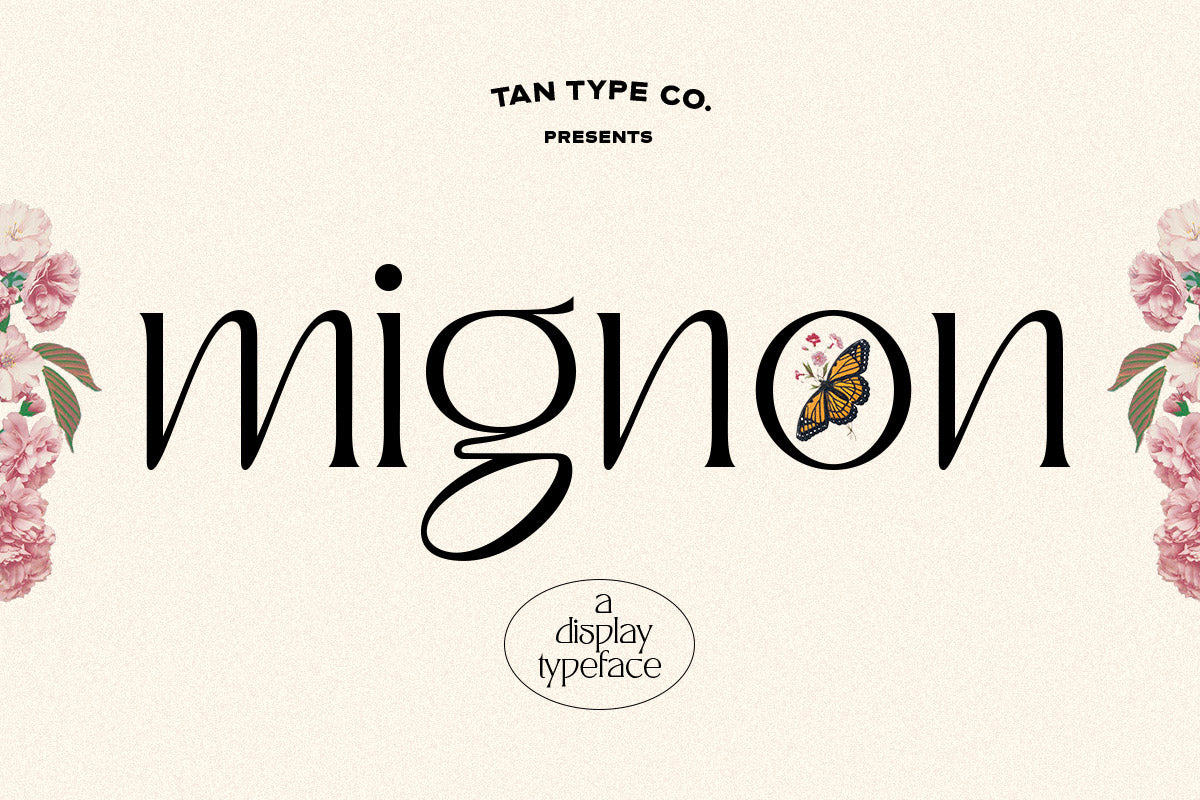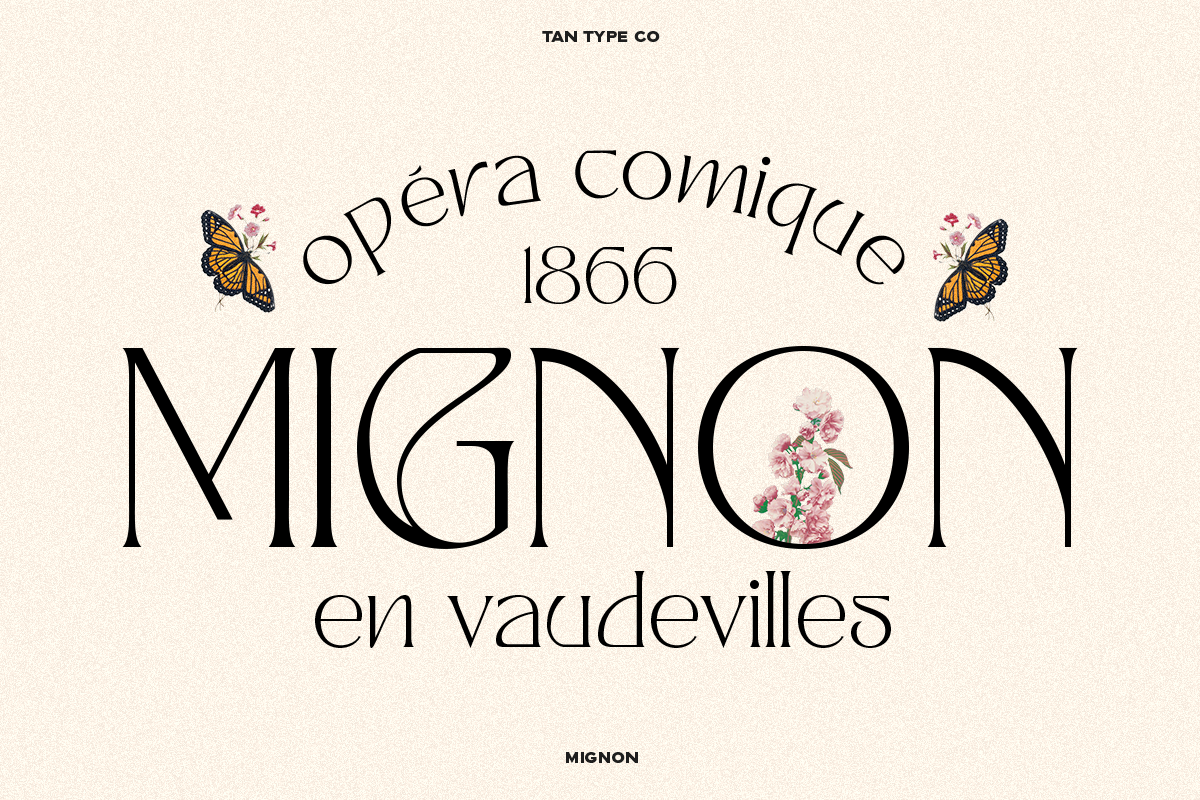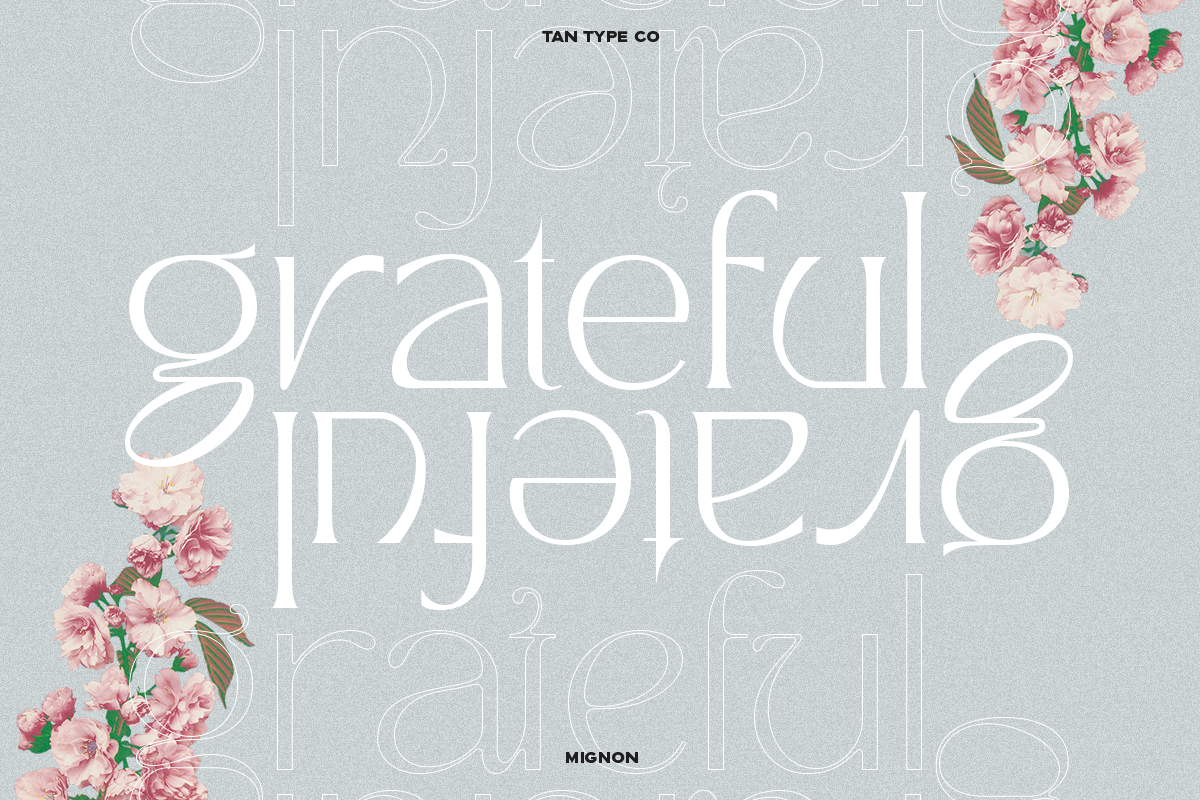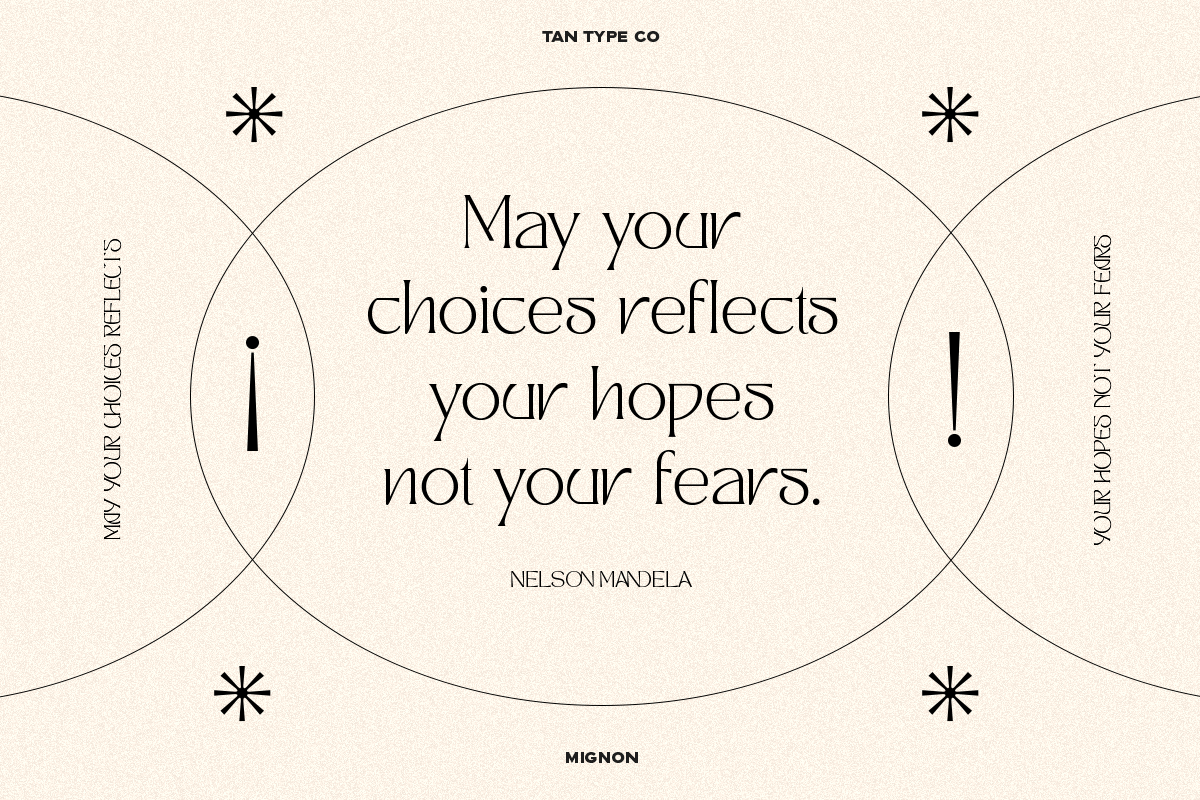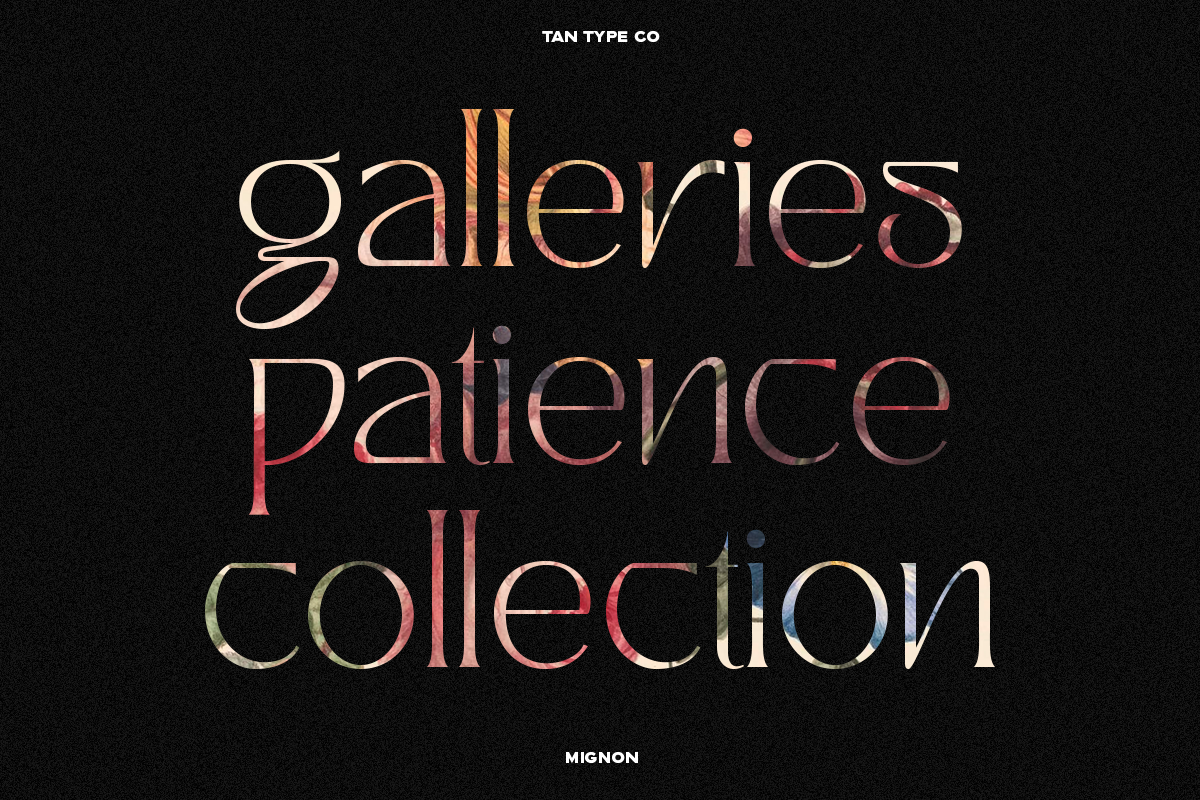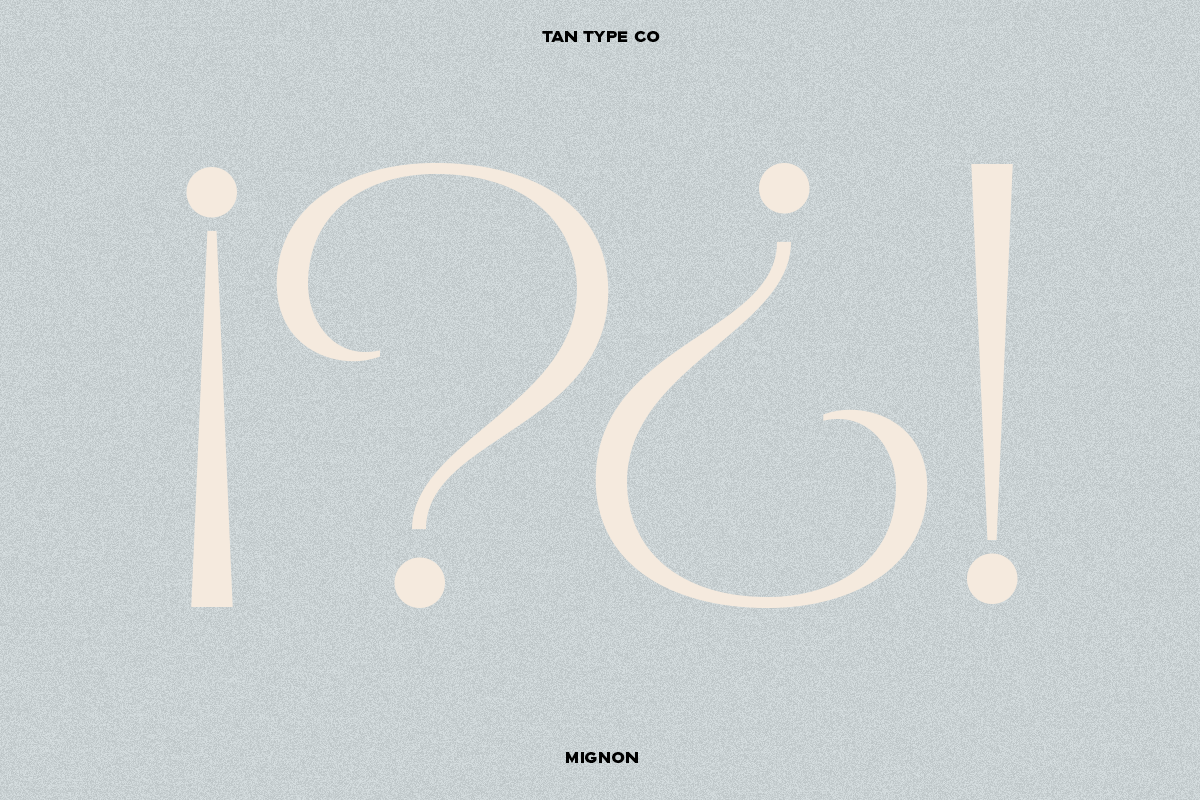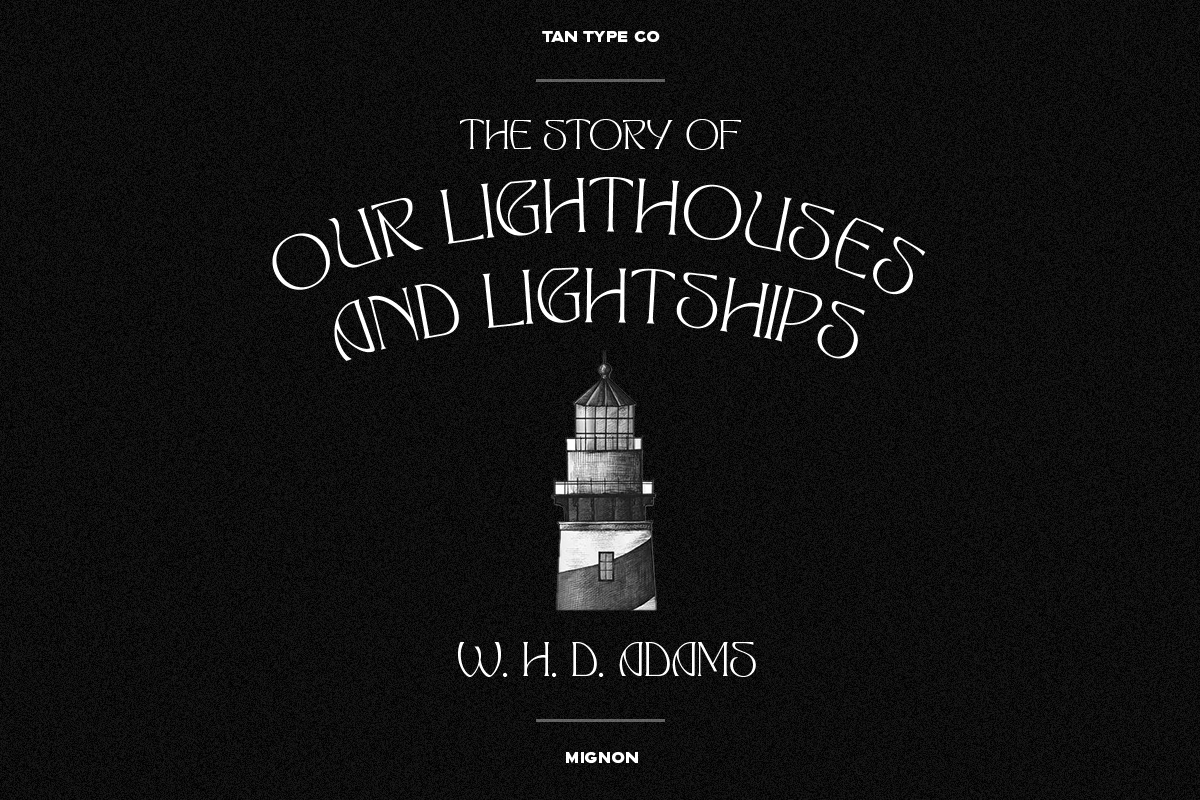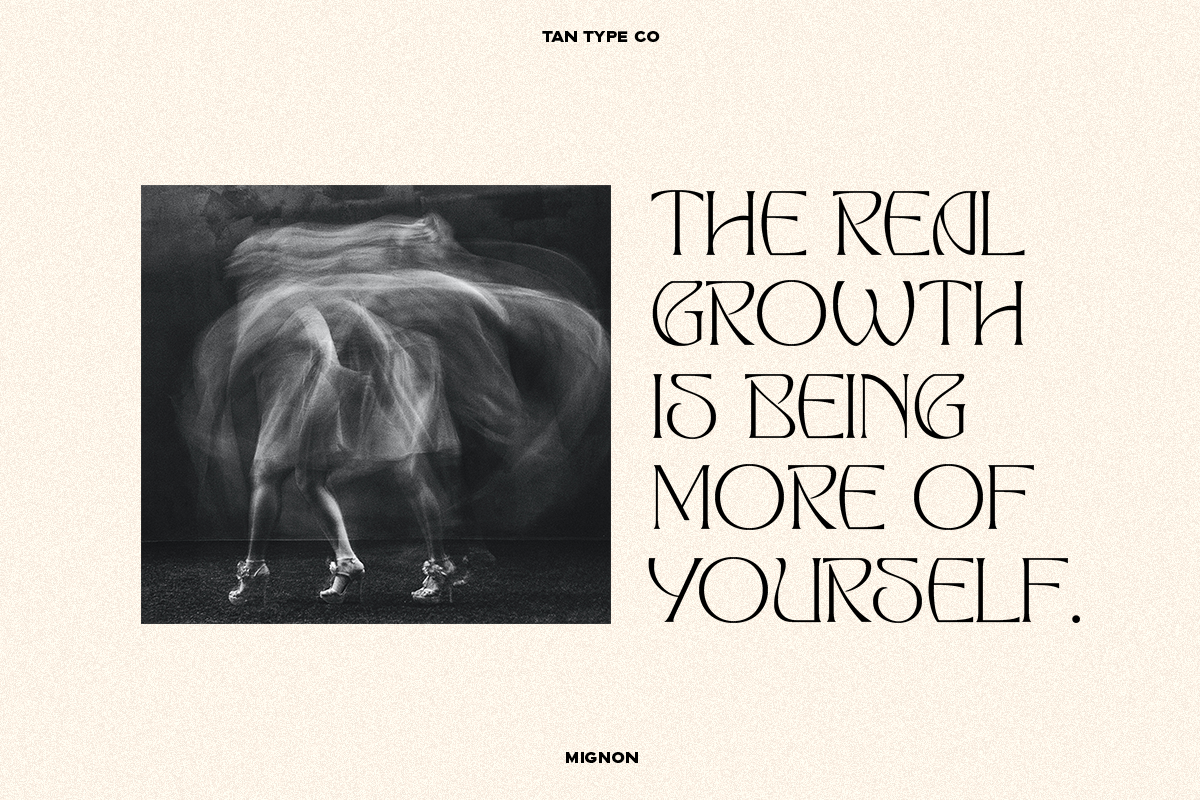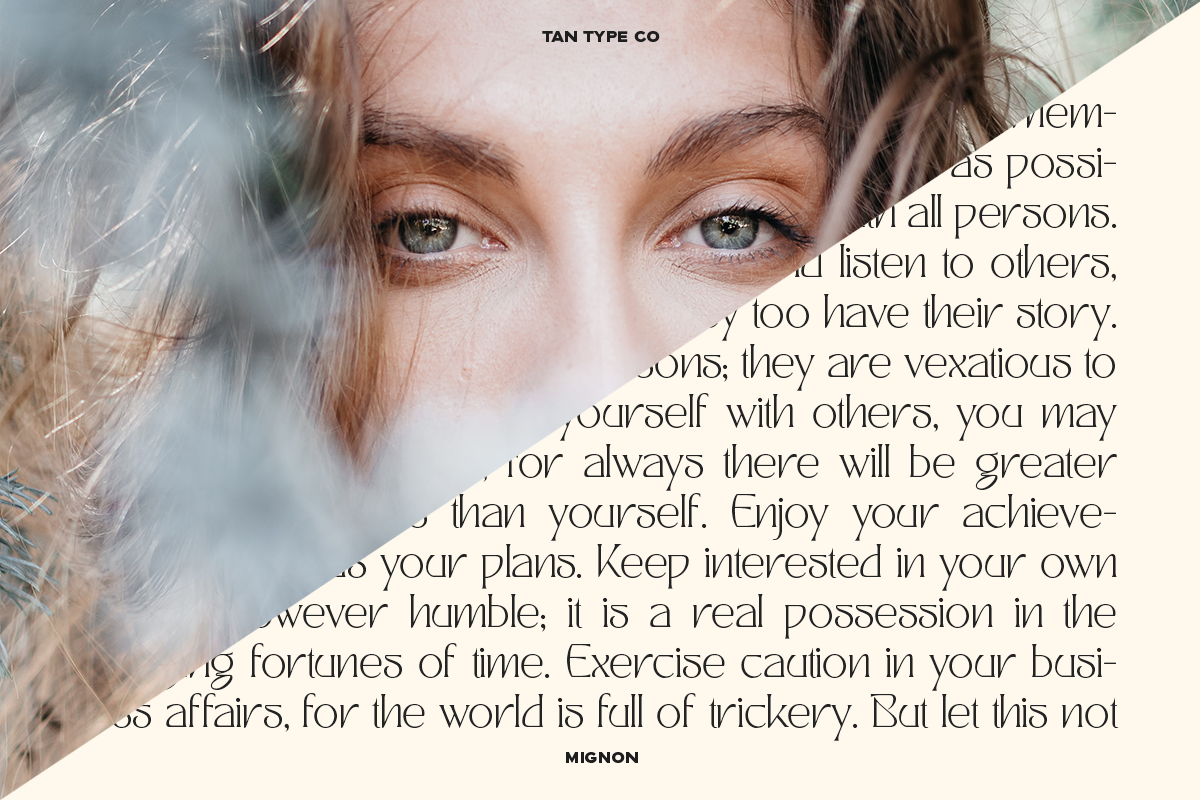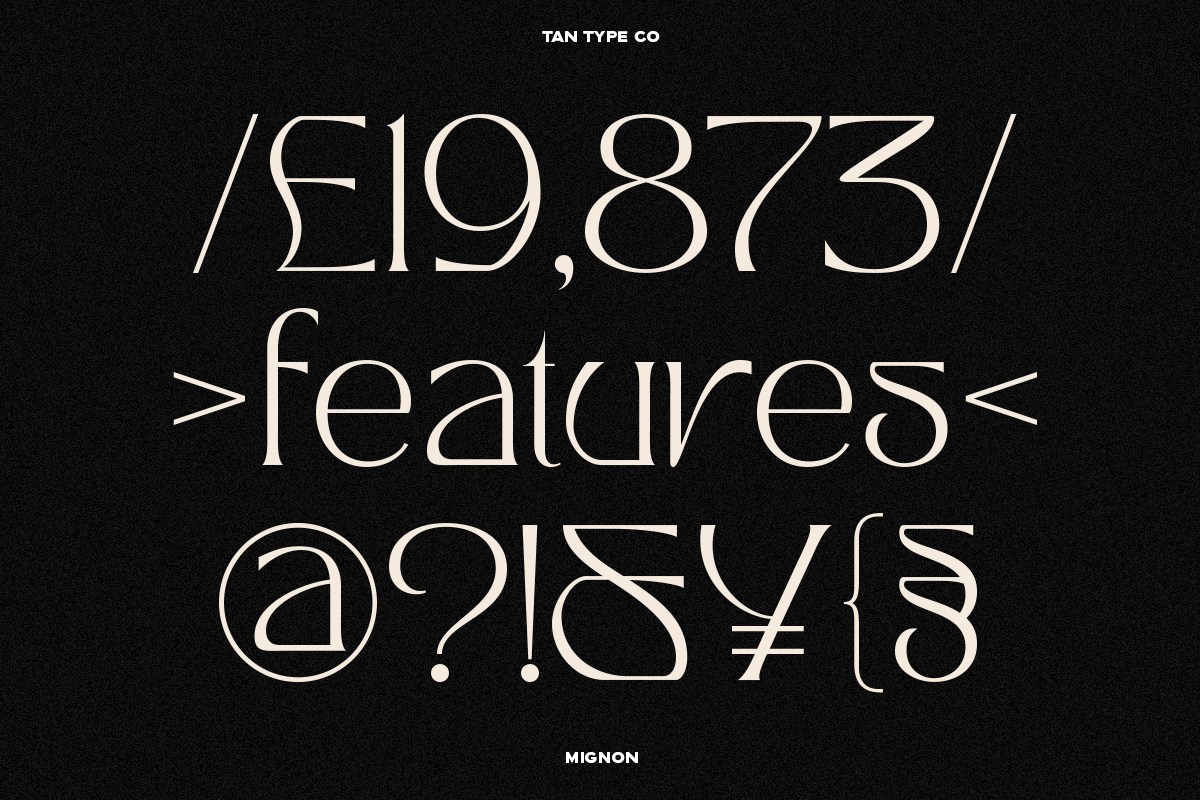
MIGNON is a graceful and refined display serif typeface with delicate curves and high contrast. Its elegant forms and subtle flourishes exude a romantic, vintage charm while maintaining a clean, modern sophistication that feels effortlessly stylish.